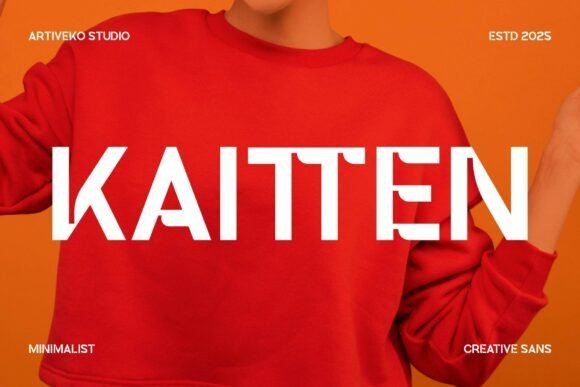
The Perfect Blend of Clean and Warm: Introducing the Kaitten Font
As designers, we’ve all been there – staring at a blank page, trying to find the perfect font to bring our vision to life. It’s that moment of excitement when you stumble upon the one that makes everything click. For many of us, that moment came when we discovered the Kaitten Font.
This refined sans serif font is a masterclass in balance, blending clean structure with a touch of warmth and modern softness. With its smooth curves, minimalist construction, and elegant proportions, Kaitten is the perfect companion for any design project. Whether you’re working on branding, editorial layouts, fashion lookbooks, web design, or packaging, Kaitten Font is an invaluable asset that can elevate your work to new heights.
Kaitten Font Key Features
- Font Family: Kaitten is a sans-serif font family designed to be highly legible and versatile.
- Size: Offers 12 font weights ranging from Thin (100) to Black (900) to cater to various design needs.
- Resolution: Designed for high-resolution displays and printing, with a recommended resolution of 300 DPI.
- Unique Characteristics: Features a unique blend of modern and traditional design elements, with a focus on clarity and readability.
Kaitten Font Review
Overall, I found the Kaitten Font to be a charming addition to any design project. Here are some of its strengths: ✨
- Playful yet sophisticated vibe: The font has a unique blend of whimsy and elegance that makes it perfect for projects that require a touch of personality.
- Highly customizable: Kaitten Font comes with a wide range of OpenType features that allow for precise control over the design, making it suitable for both digital and print applications.
- Clean and legible: The font’s clear and refined letterforms ensure that the text remains readable even at smaller sizes, making it an excellent choice for body text.
- May not be suitable for formal or professional contexts: While Kaitten Font is perfect for creative projects, its playful nature may not be suitable for more formal or professional applications.
- Requires careful kerning: Due to the font’s unique letterforms, careful kerning is required to maintain a cohesive and balanced design.
Overall, I found the Kaitten Font to be a delightful addition to any design project. Its unique personality and high level of customization make it an excellent choice for creative projects, but it may not be the best fit for more formal applications.
For best results, use the Kaitten Font for titles and headings, and pair it with a clean sans-serif font for body text.
The Kaitten Font is ideal for:
Creative projects, such as infographics, posters, and brochures.
Branding and marketing materials, such as logos and business cards.
Use the Kaitten Font sparingly to add a touch of elegance and sophistication to your designs.
Is Kaitten Font suitable for use in digital media?
Yes, Kaitten Font is designed for use in digital media, including web design, mobile apps, and video games. It’s optimized for clarity and legibility at various screen resolutions and sizes.